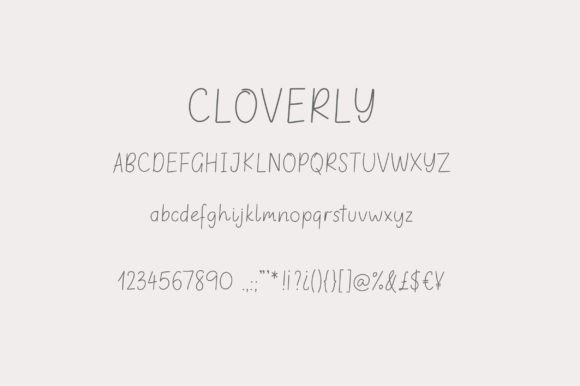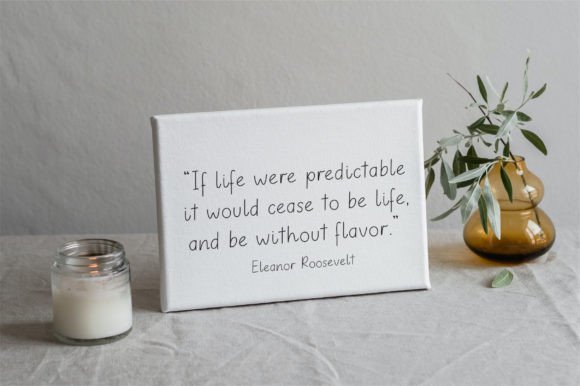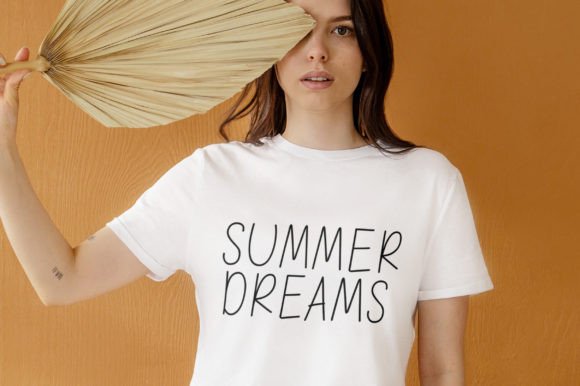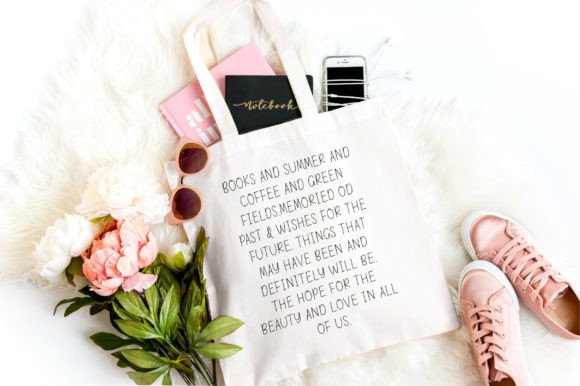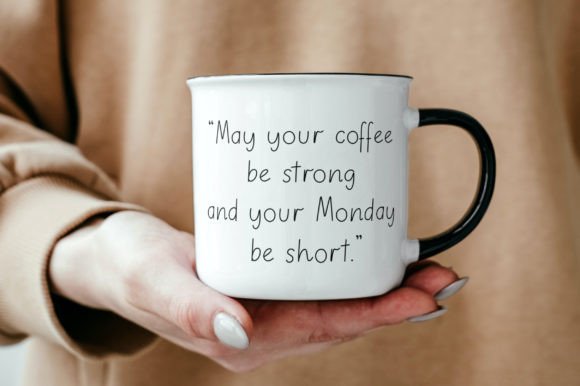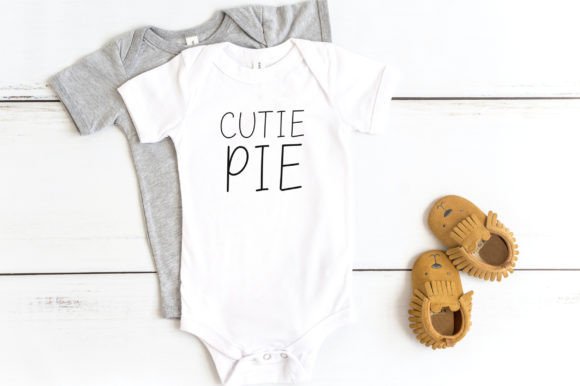
Meet Cloverly Font: The Ultimate Handwritten Font for Designers and Crafters
Are you tired of using the same old fonts for your design projects? Look no further than Cloverly Font, a simple yet elegant handwritten font that’s perfect for a wide range of applications. In this article, we’ll dive into the world of Cloverly Font and explore its features, benefits, and uses.
What is Cloverly Font?
Cloverly Font is a beautiful, handwritten font that’s designed to be clean, fresh, and versatile. Its simple yet charming design makes it perfect for a variety of design projects, from print materials like t-shirts, invitations, and greeting cards to digital applications like social media posts and more.
Key Features of Cloverly Font
- Handwritten design: Cloverly Font boasts a lovely handwritten design that’s both elegant and approachable.
- Clean and fresh: The font’s clean and fresh design makes it perfect for a wide range of applications, from formal to informal.
- Versatile: Cloverly Font is suitable for both print and digital applications, making it a great addition to any designer’s toolkit.
- Easy to read: The font’s clear and legible design ensures that your text is easy to read, even at small sizes.
Benefits of Using Cloverly Font
So why should you choose Cloverly Font for your design projects? Here are just a few benefits of using this amazing font:
- Add a personal touch: Cloverly Font’s handwritten design adds a personal touch to your designs, making them more relatable and engaging.
- Stand out from the crowd: With its unique and elegant design, Cloverly Font helps your designs stand out from the crowd and grab attention.
- Save time: The font’s versatility and ease of use save you time and effort, allowing you to focus on other aspects of your design.
- Perfect for crafters: Cloverly Font is also perfect for crafters, who can use it to create beautiful handmade cards, invitations, and other paper crafts.
Use Cases for Cloverly Font
Cloverly Font is perfect for a wide range of design projects, including:
- Print materials: Use Cloverly Font for t-shirts, invitations, greeting cards, posters, and more.
- Digital applications: Use Cloverly Font for social media posts, blog headers, email newsletters, and more.
- Crafting: Use Cloverly Font for handmade cards, invitations, and other paper crafts.
- Branding: Use Cloverly Font to create a unique and memorable brand identity.
Tips for Using Cloverly Font
Here are a few tips for getting the most out of Cloverly Font:
- Experiment with sizes: Cloverly Font looks great at a variety of sizes, so don’t be afraid to experiment and find the perfect size for your design.
- Pair with other fonts: Cloverly Font pairs well with other fonts, so try combining it with a bold font for headings or a sans-serif font for body text.
- Use it for titles and headings: Cloverly Font is perfect for titles and headings, where its elegant design can really shine.
| Font Name | Cloverly Font |
| Author | sunday nomad |
In conclusion, Cloverly Font is a versatile and elegant handwritten font that’s perfect for designers and crafters alike. Its clean and fresh design makes it suitable for a wide range of applications, from print materials to digital applications. With its ease of use, versatility, and charming design, Cloverly Font is a great addition to any designer’s toolkit.